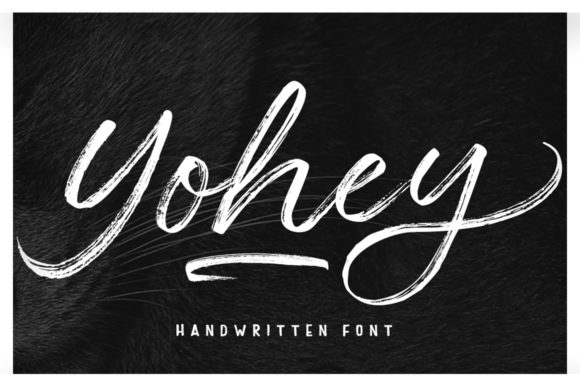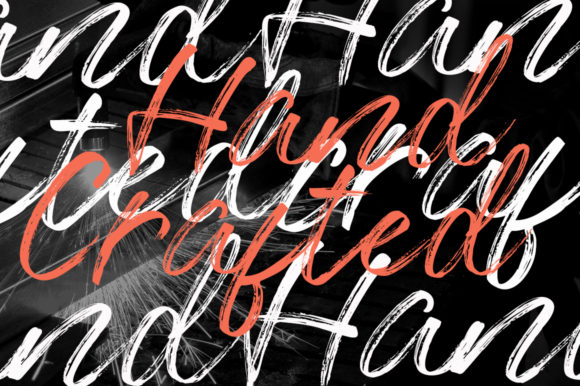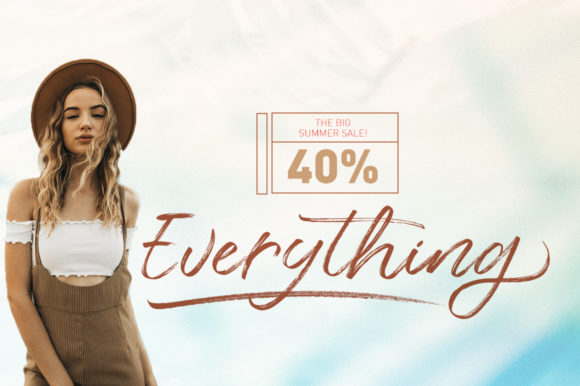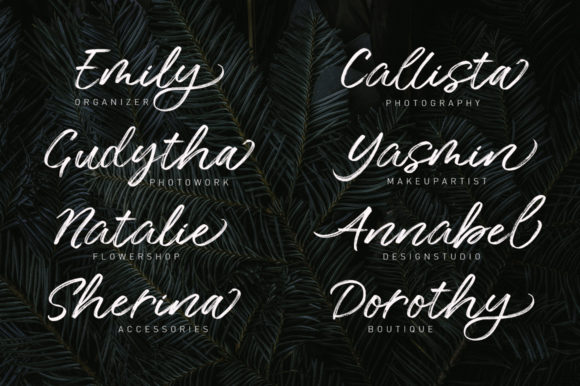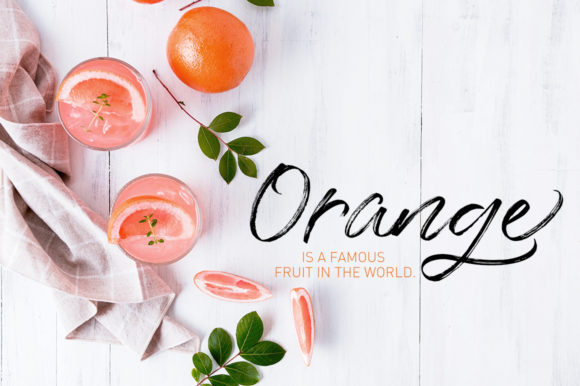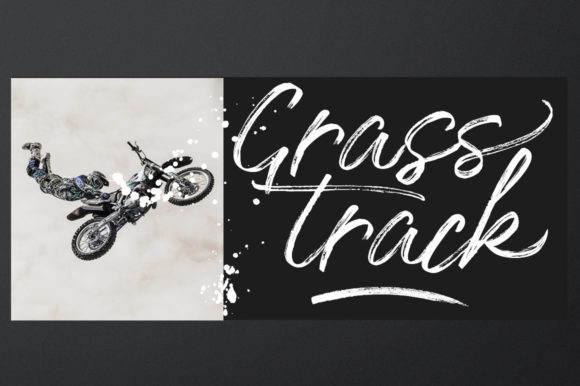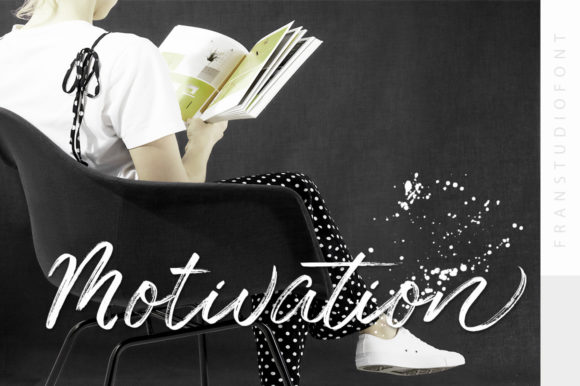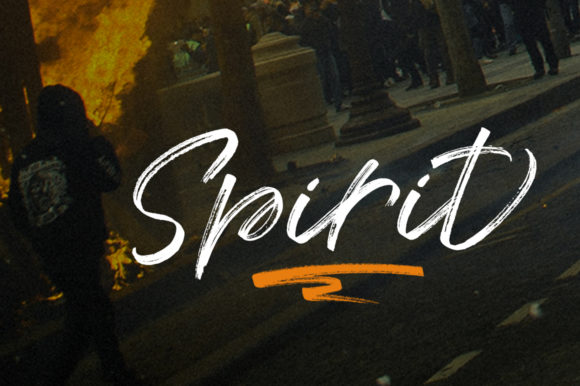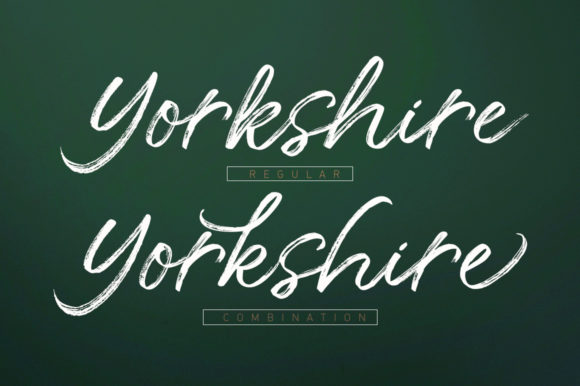
Yohey Font
About Yohey Font
Yohey is a hand-brushed modern script created with both pen and brush. It includes a dancing baseline with separate swashes that can be applied to the beginning and ends of all lowercase letters!